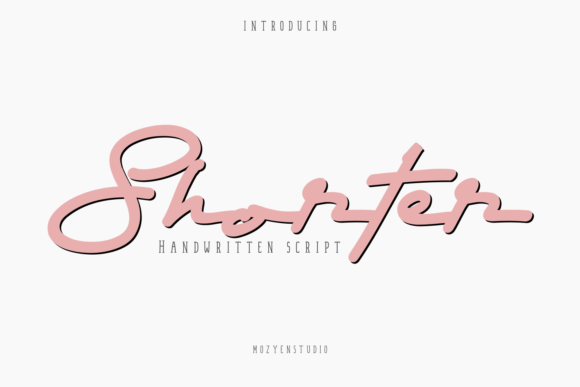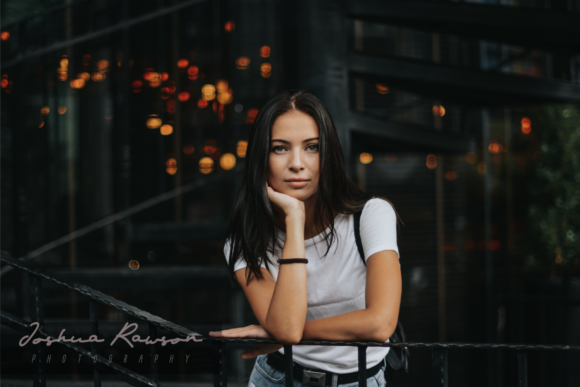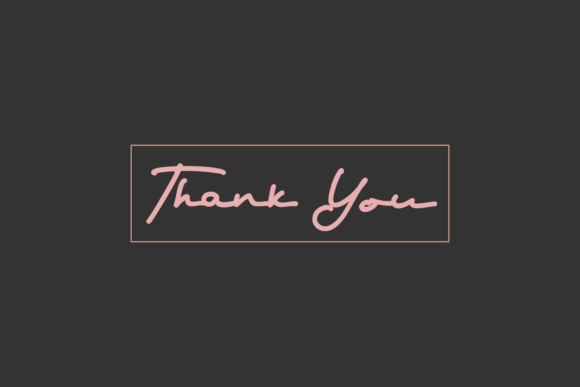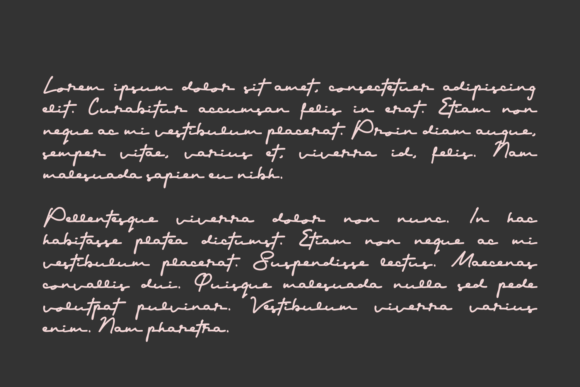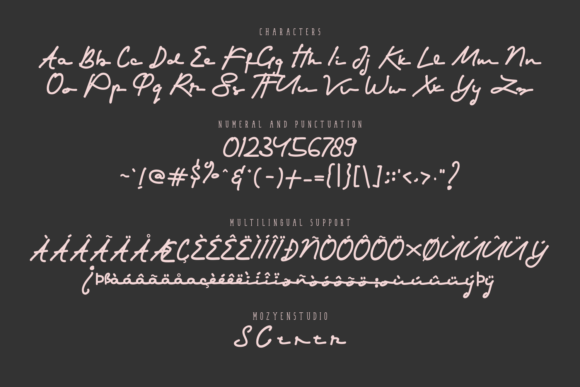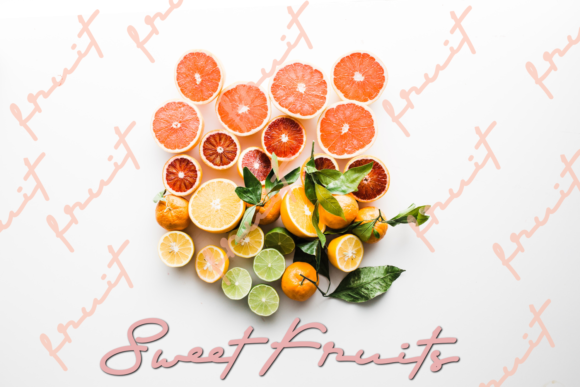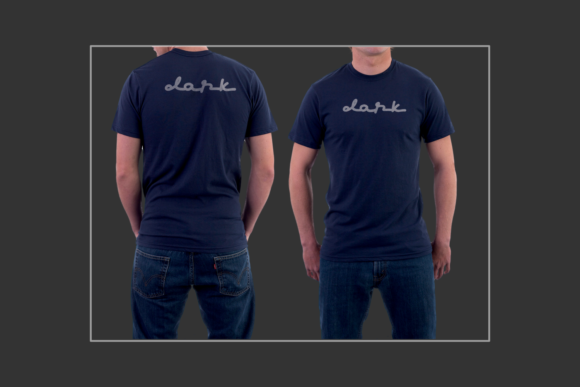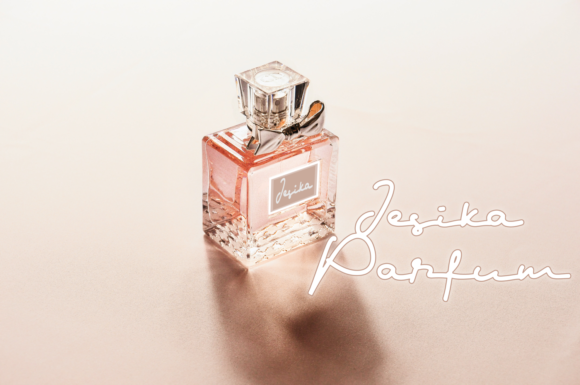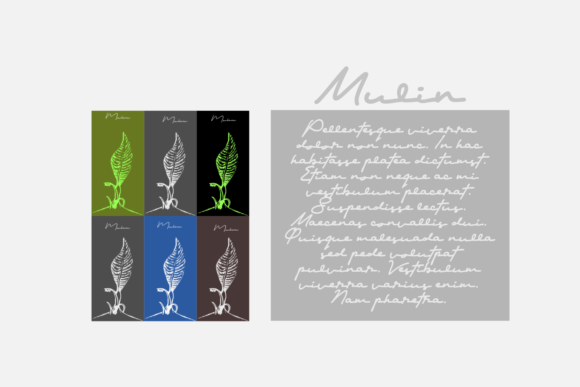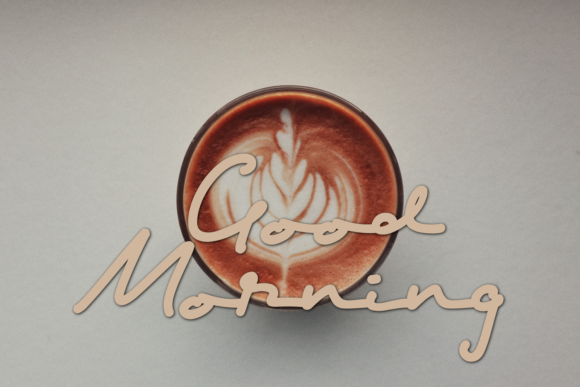
Shorter Font
About Shorter Font
Shorter feels equally charming and modern. Whether you’re looking for fonts for Instagram or calligraphy scripts for DIY projects, Shorter will turn any creative idea into a true piece of art!